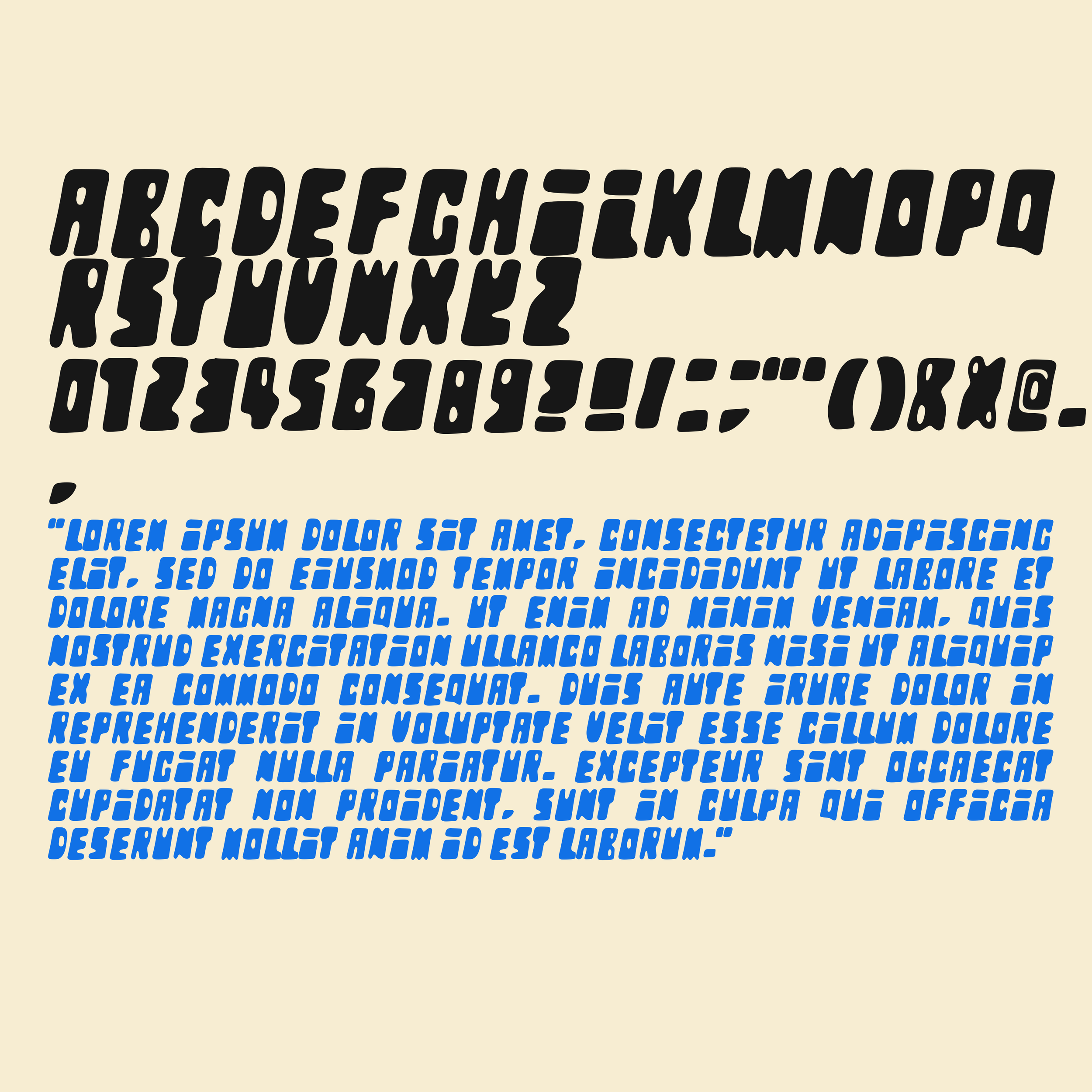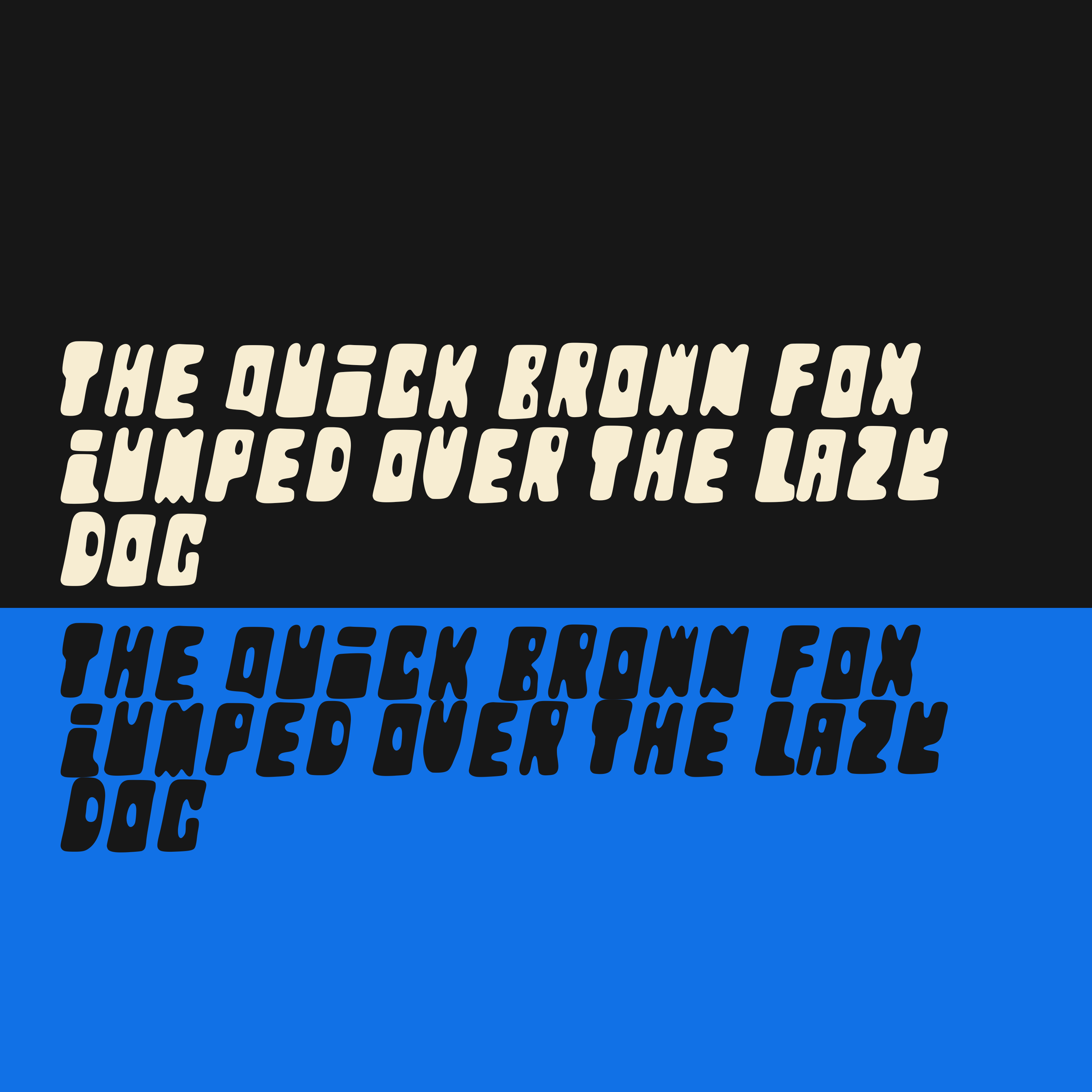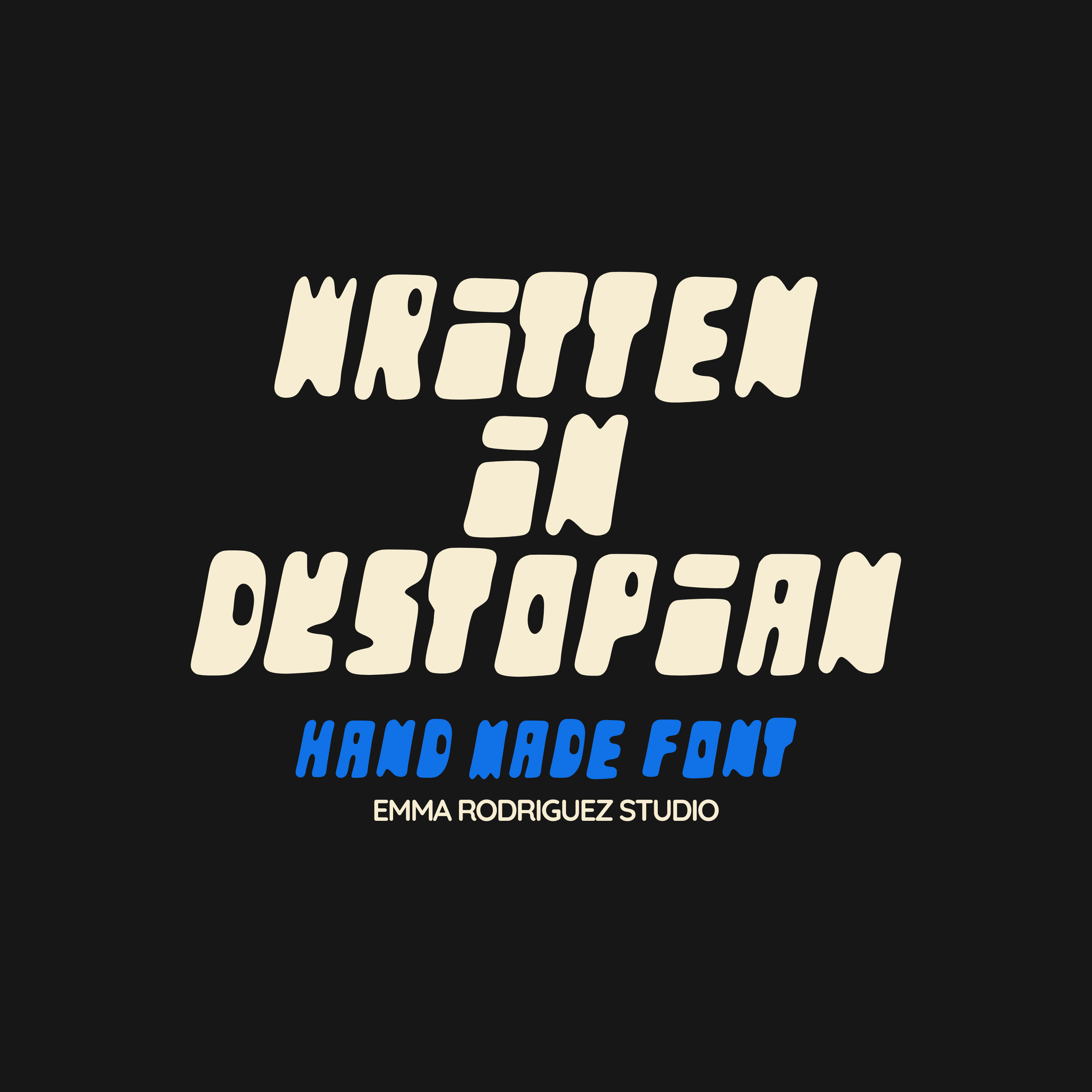
Written In Dystopian Font - Handwritten Thick & Fun Bubbly, Space, Sci-Fi Style Type
Meet Written in Dystopian, a bubbly, quirky, thick hand created space sci fi digital style font that feels like it was scrawled inside a futuristic notebook after the world went a bit weird. Rounded forms, chunky strokes, and playful inconsistencies give it a bold personality with a slightly dystopian edge.
This font leans into hand drawn chaos while keeping a clean, digital sci fi feel. It is perfect for posters, branding, quotes, zines, album artwork, stickers, social graphics, and anything that needs character without taking itself too seriously.
Written in Dystopian feels like friendly sci fi with a glitchy soul. Cute but strange. Playful but otherworldly. The kind of font you use when you want your type to look alive, slightly unhinged, and very intentional.
• All Uppercase letters
• Numbers & basic punctuation